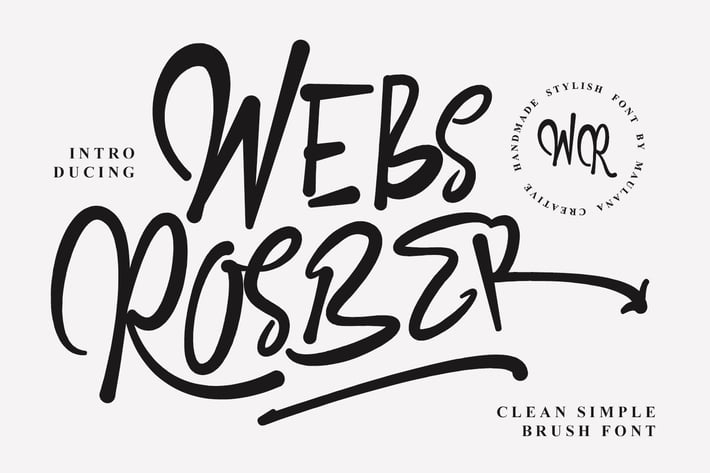
Webs Rosber Clean Simple Brush Font
Give your designs an authentic brush handcrafted feel. “Webs Rosber Clean Simple Brush Font” is perfectly suited to signature, stationery, logo, typography quotes, website header, branding and more.